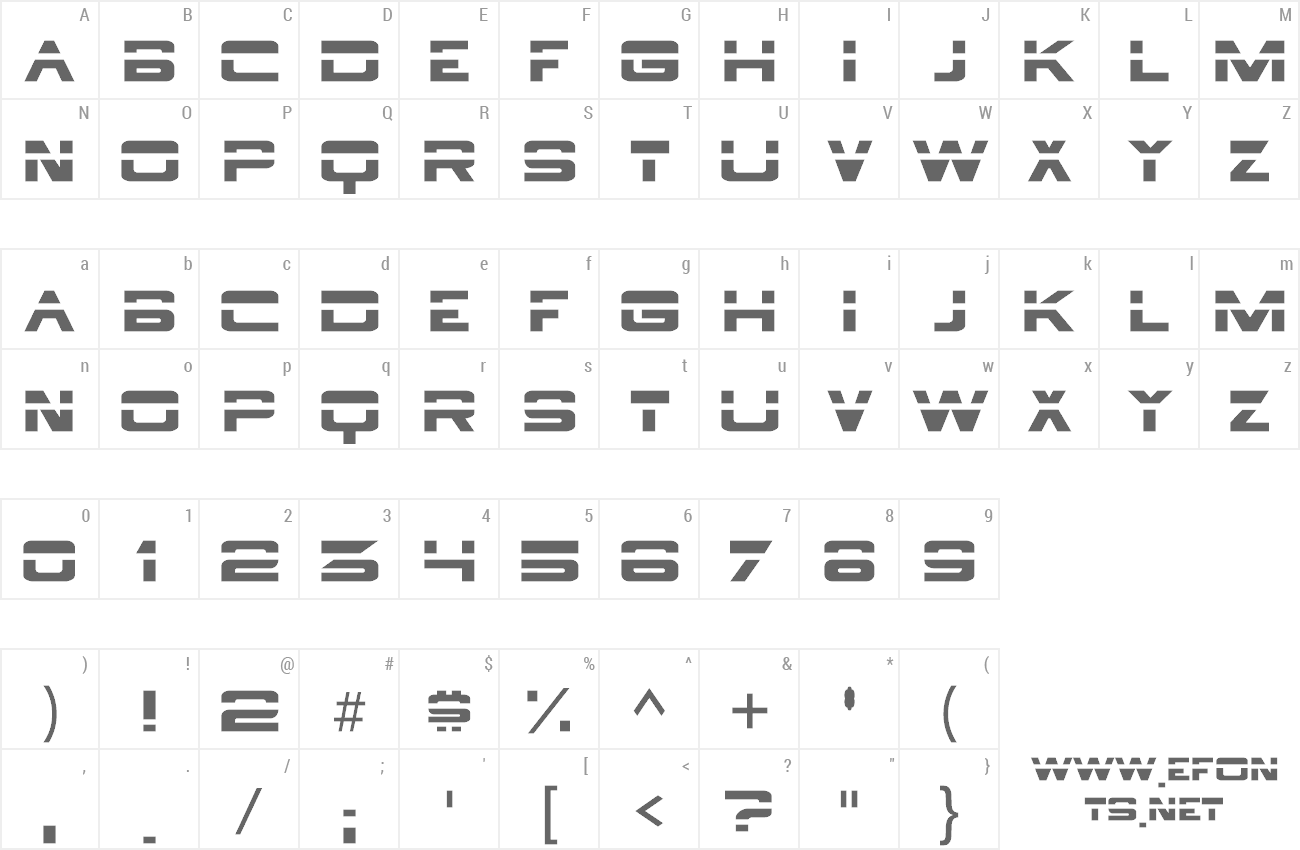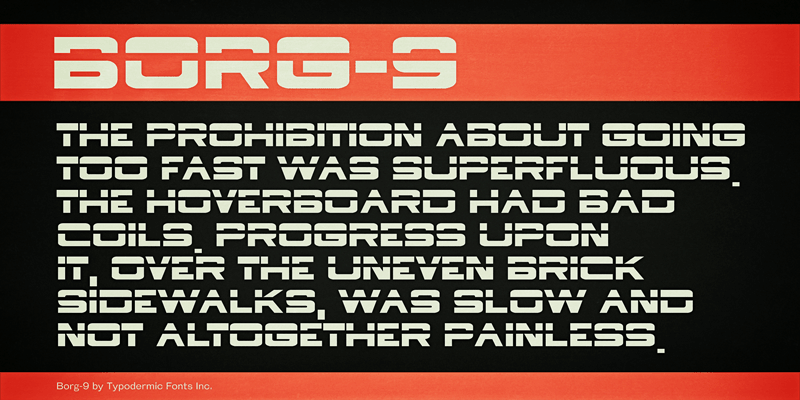
Preview and download Borg 9 Font. Created by Typodermic Fonts in Techno Sci-fi styles with 100% Free license.
Borg9 is a 1980’s style techno display font. It was generally seen on fictitious, high tech helicopters. This font includes a license that allows free commercial use: sometimes referred to as a desktop license. This allows you to install the font on a computer and use it to create posters, web graphics, game graphics, t-shirts, videos, signs, logos and more. Read the license agreement for details. If you'd like to embed this font in an app, ebook, on the web or anything that's not covered by the desktop license agreement, visit the link below. You'll find distributors who offer different types of licenses or you can contact me for help. http://typodermicfonts.com/borg-9/ |